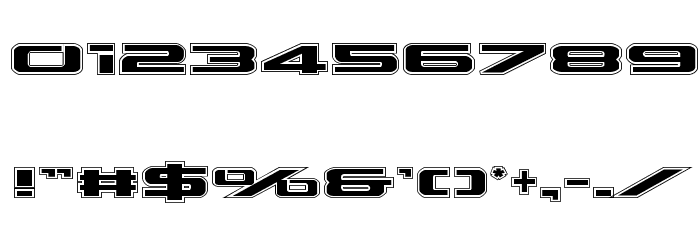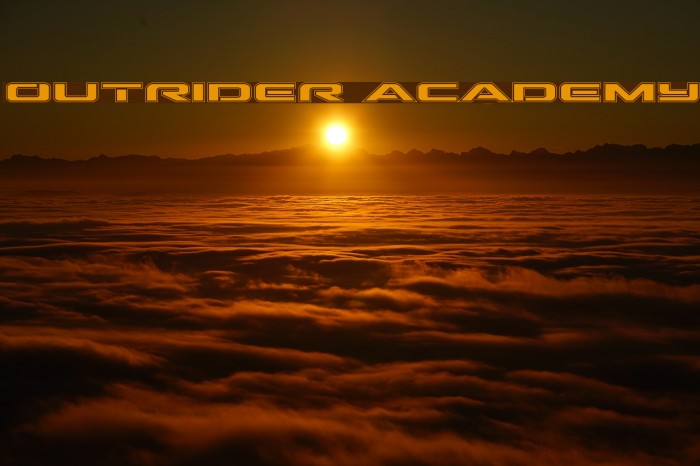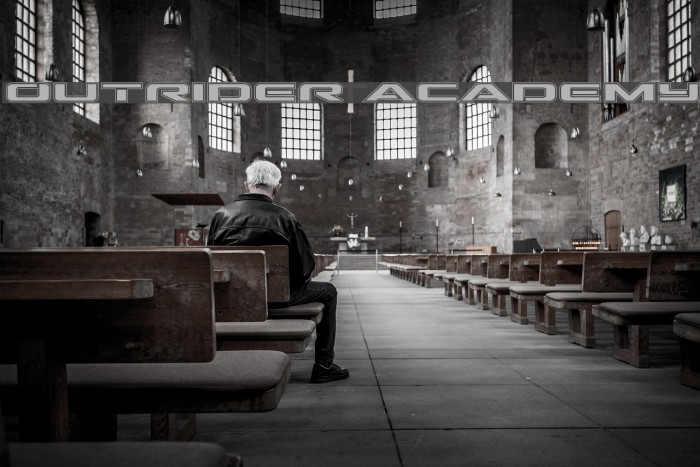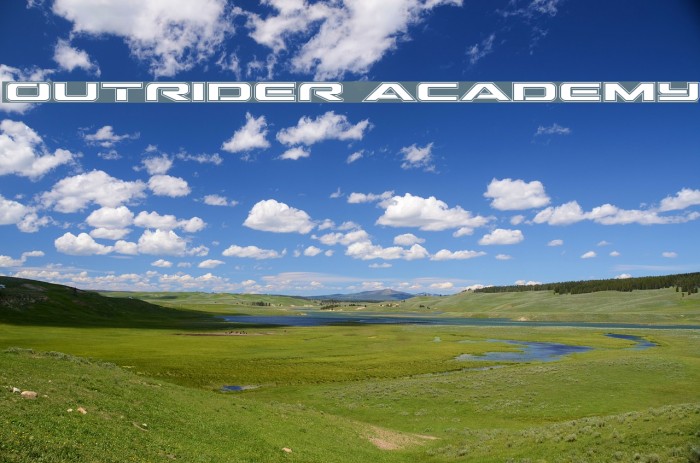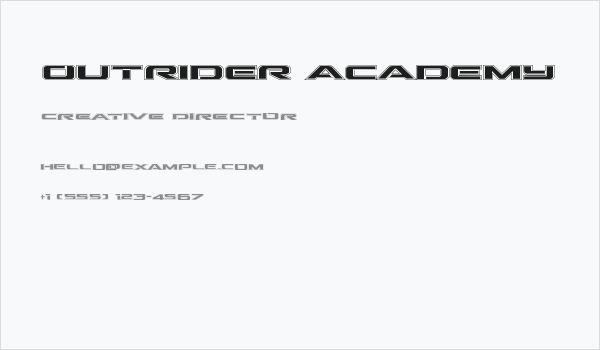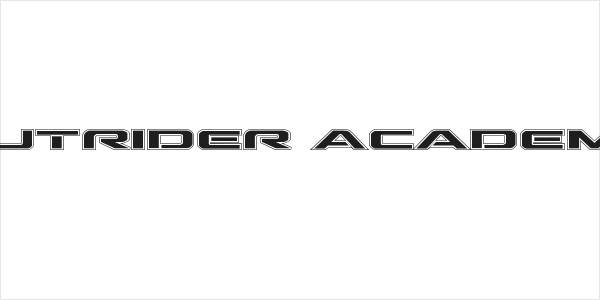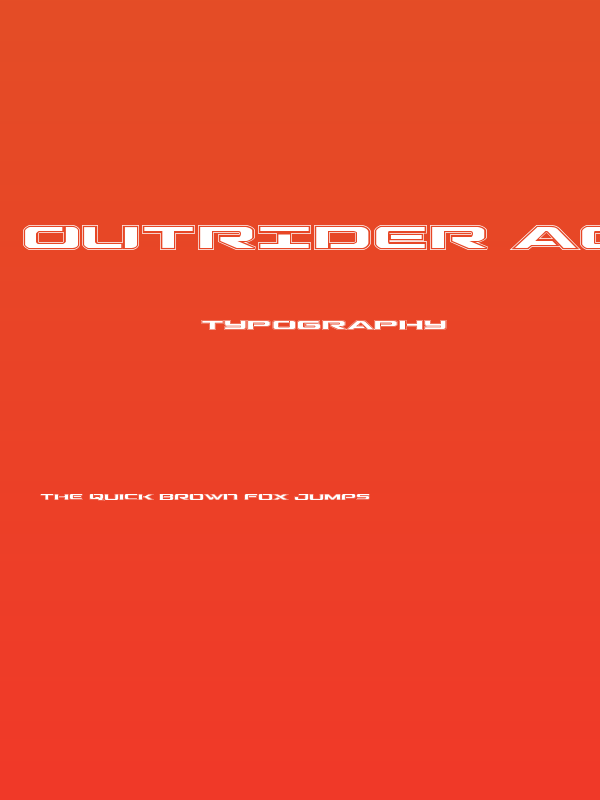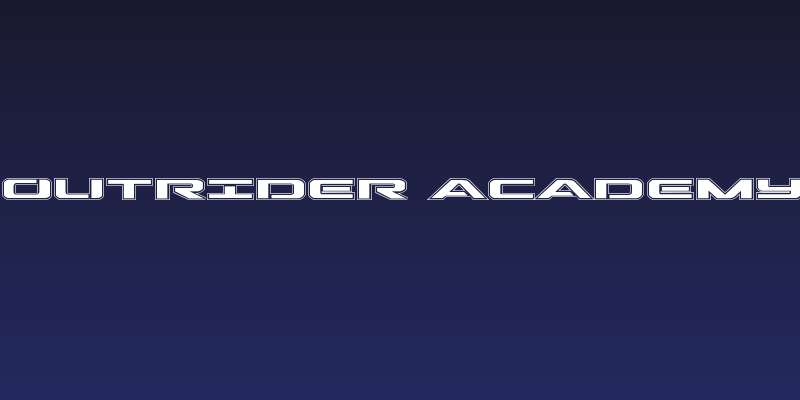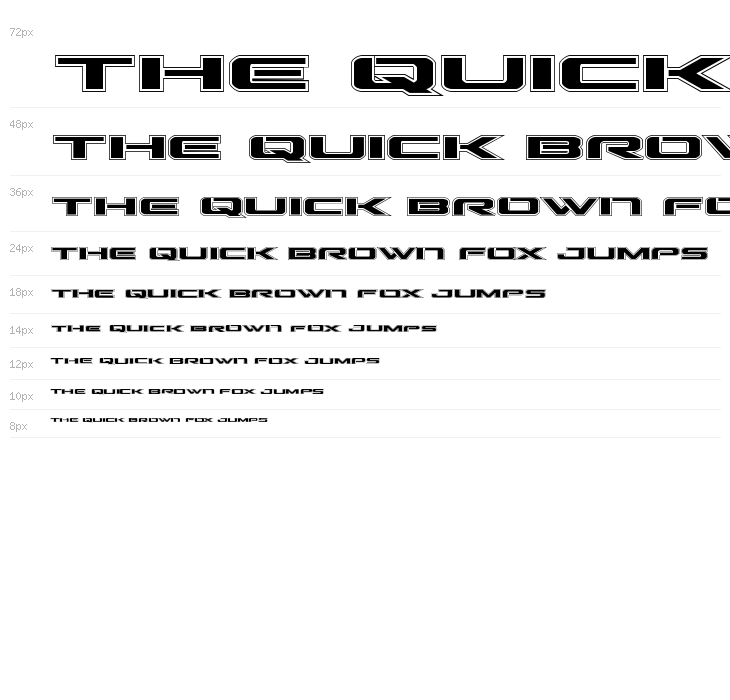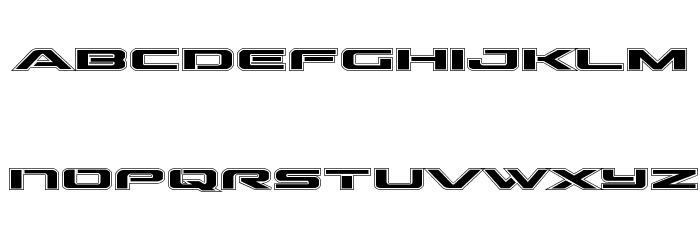
Outrider Academy Font
Outrider Academy Description
This font features a bold and futuristic design with sharp, angular edges and a distinct geometric style. Each character is outlined with a double line, creating a sense of depth and dimension. The uppercase letters are particularly striking, with a wide stance and a commanding presence. The lowercase letters maintain the same boldness, ensuring consistency across the typeface. Numbers and special characters are equally robust, making this font versatile for various applications. The overall aesthetic is modern and dynamic, suitable for projects that require a strong visual impact.
| Proposed Projects | Ideal for sci-fi themed designs, video game titles, tech branding, and futuristic posters. |